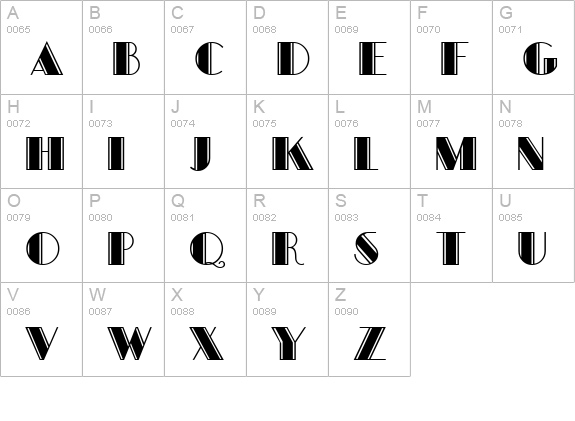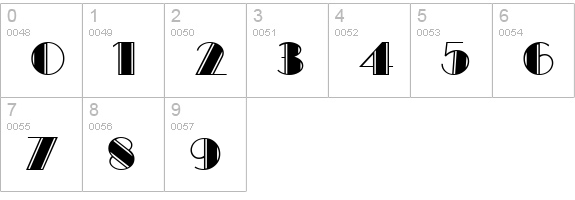
Boogaloo Avenue NF Font Details
Boogaloo Avenue NF font is a whimsical and playful typeface that exudes a sense of fun and creativity. Its unique design features lively curves and bold strokes, making it perfect for adding a touch of personality to any project. With its retro-inspired look, Boogaloo Avenue NF font is sure to catch the eye and make a statement. The best part? Boogaloo Avenue NF font is available for free download at FontsMarket.com. This means you can easily add this charming font to your collection without breaking the bank. Whether you're working on a poster, logo, or any other design project, Boogaloo Avenue NF font is a versatile choice that will bring a smile to your audience's face. Download it today and let your creativity shine with this delightful typeface.